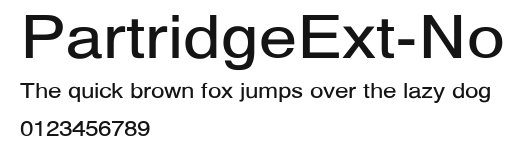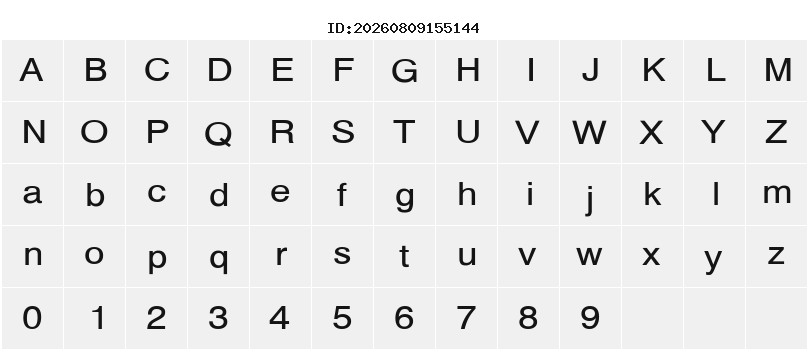
About PartridgeExt-No.ttf
PartridgeExt-No.ttf is a modern, elegant sans-serif font designed for ultimate readability and visual harmony. Perfect for branding, headlines, web design, and print materials.